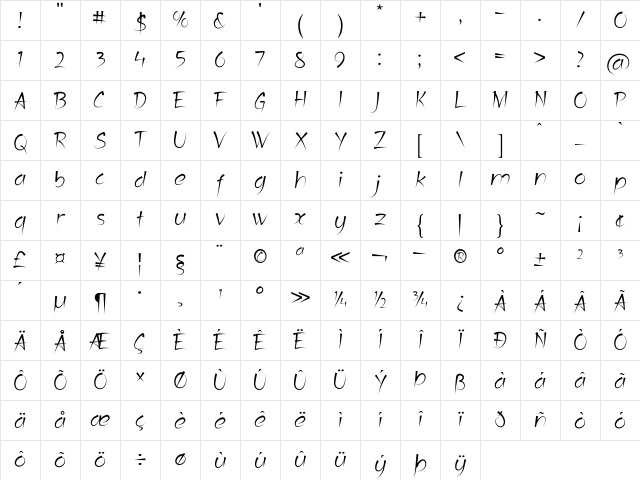
Balleto Regular
Design Context for Balleto
Balleto is a composed and adaptable typeface that performs quietly and consistently across a wide range of design contexts.